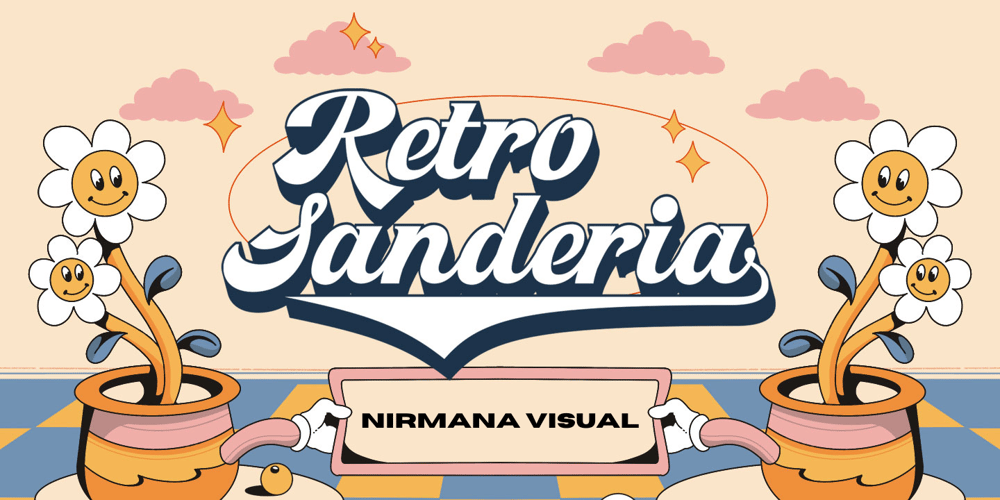
Retro Sanderia Font Family was designed by Sigit Dwipa and published by Nirmana Visual. Retro Sanderia contains 2 styles and family package options. Retro Sanderia, Inspired by 70s Advertising Design With 2 Style : Regular & Shadow Retro Sanderia offers beautiful typographic harmony for a diversity of design projects, including logos & branding, social media posts, advertisements & product designs.